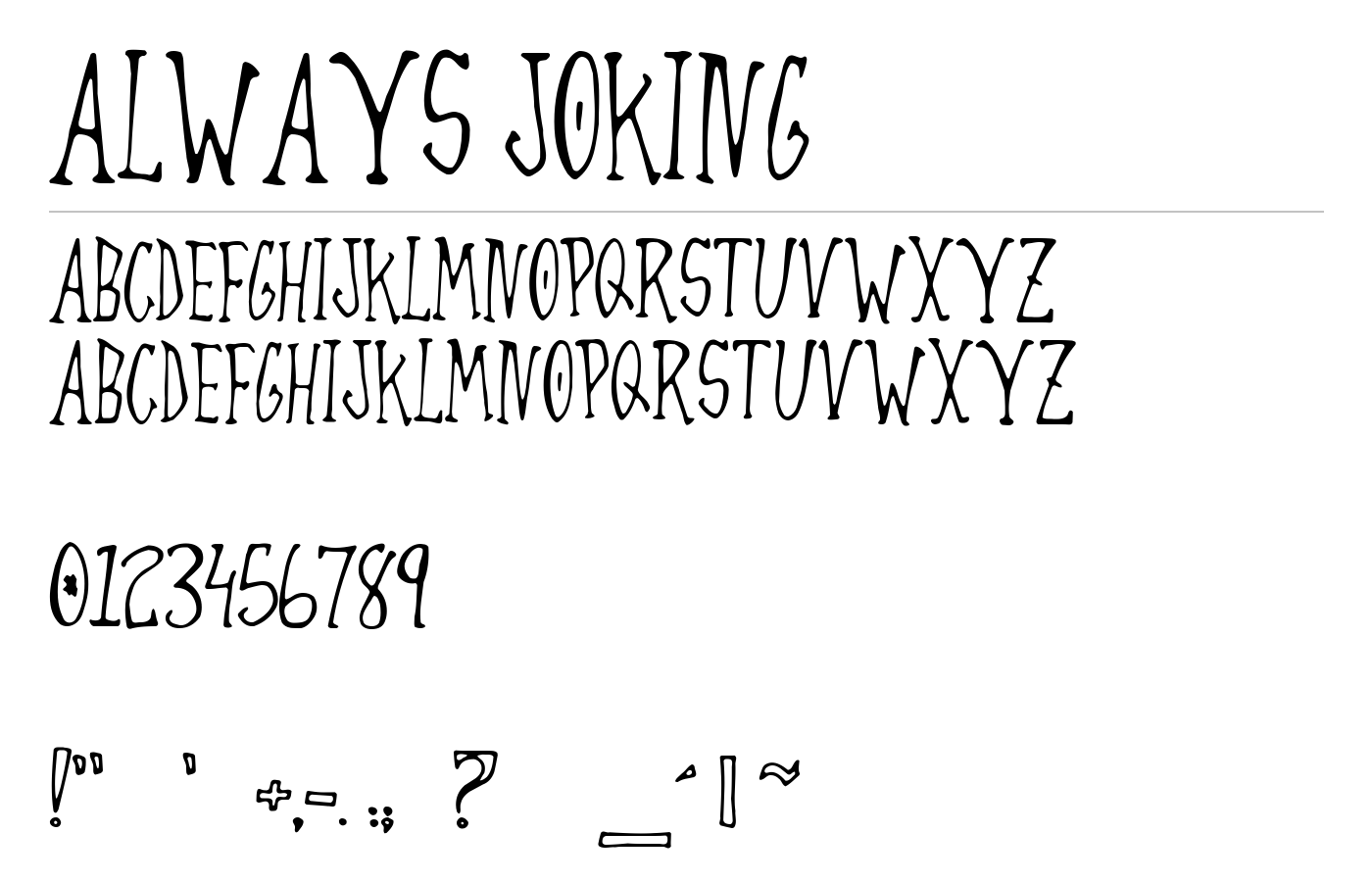
Always Joking is a whimsical, hand-drawn serif font with a playful and slightly quirky personality. Its irregular strokes and uneven letterforms give it a casual, creative feel that works great for fun, informal designs like posters, greeting cards, or playful branding aimed at a youthful audience. This font’s charming imperfections and unique character shapes make it perfect for projects needing a friendly and approachable vibe.
Always Joking Font
About Always Joking Font
| Font family | Always Joking Font |
| Designer | S. John Ross |